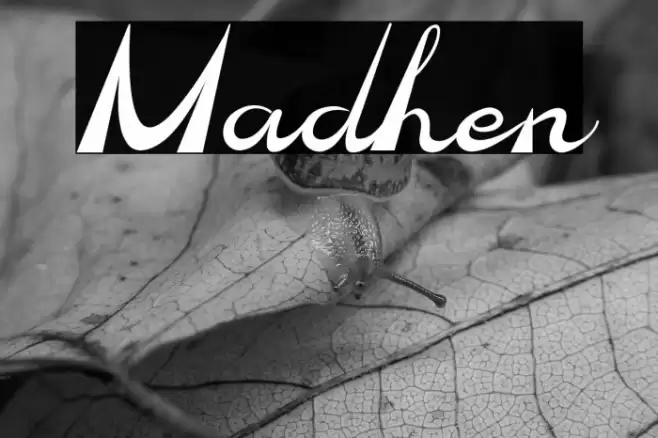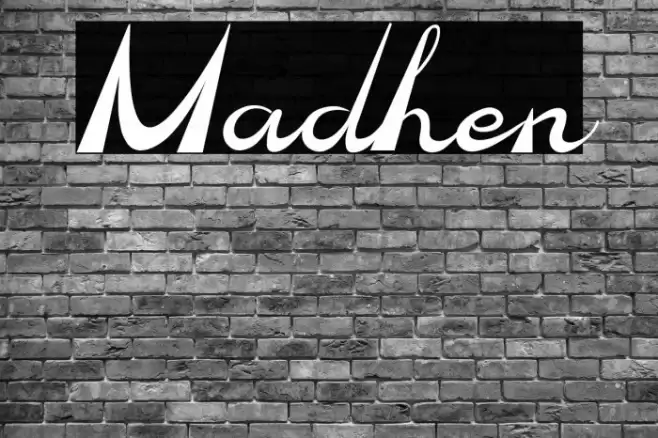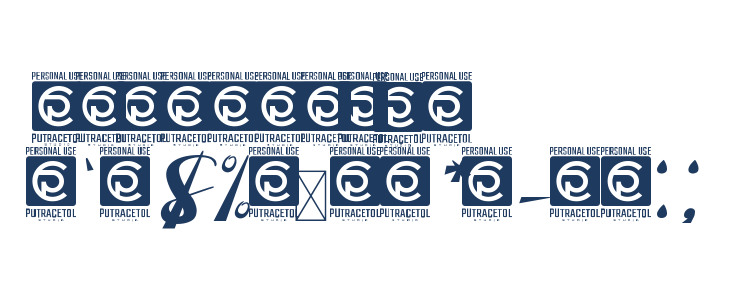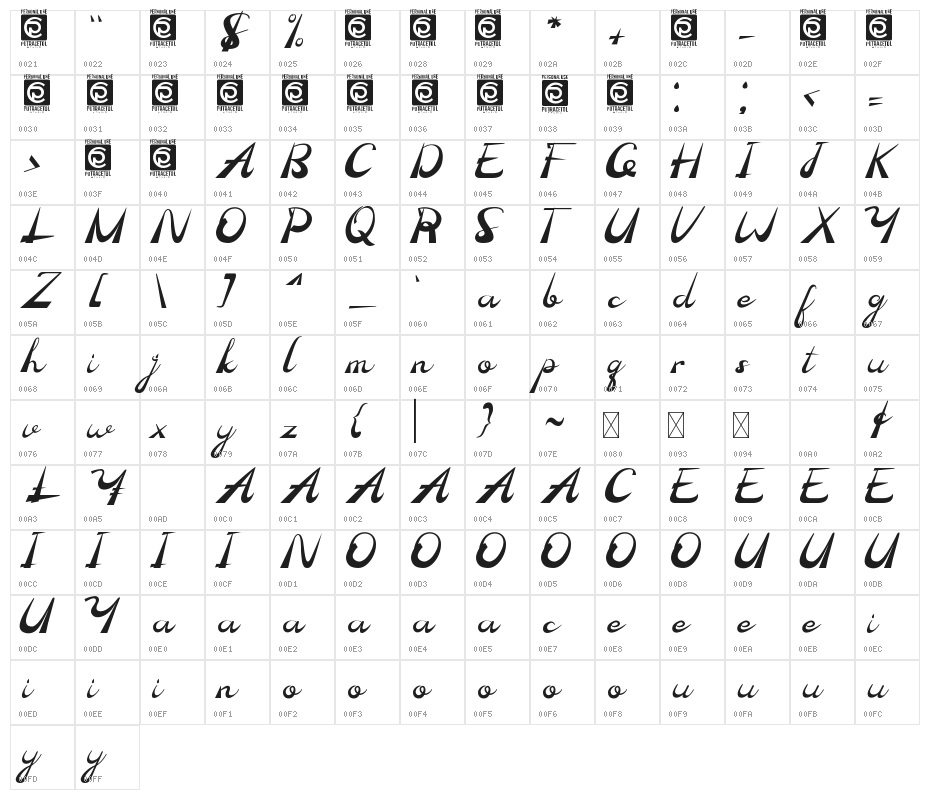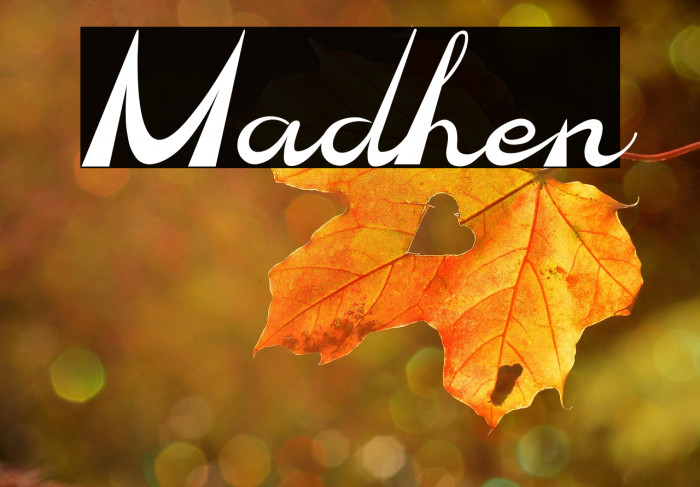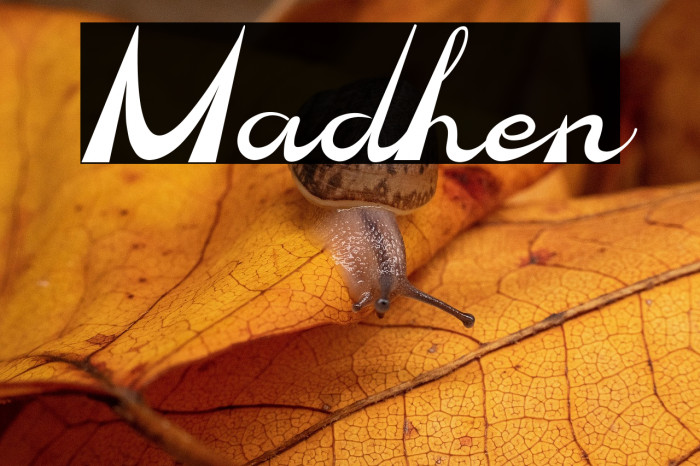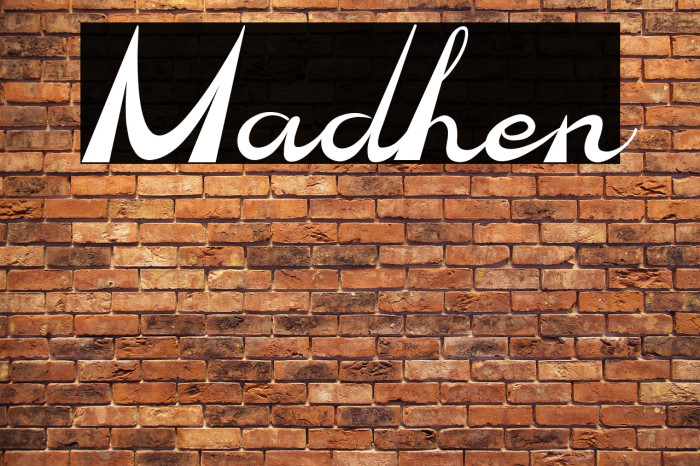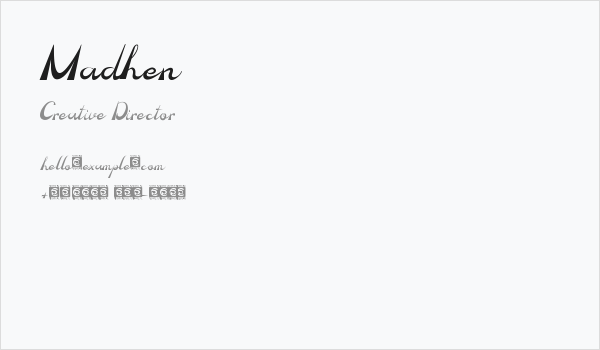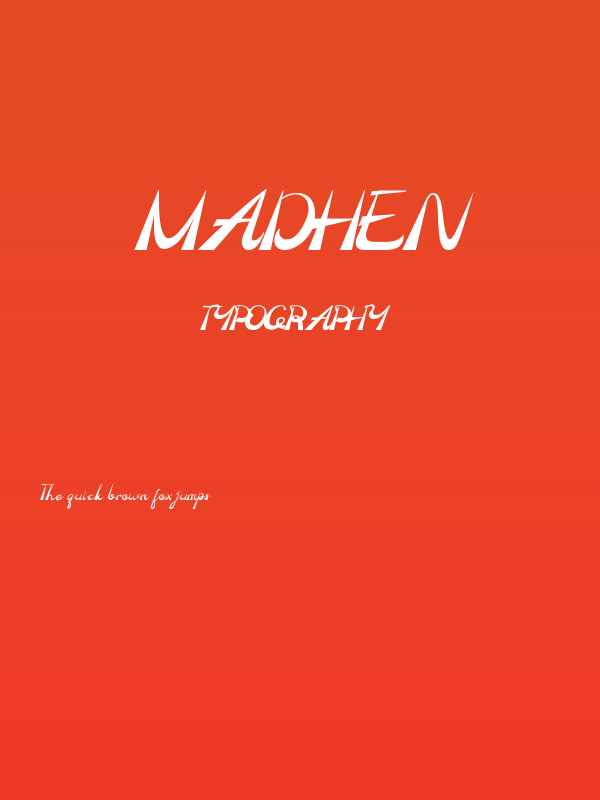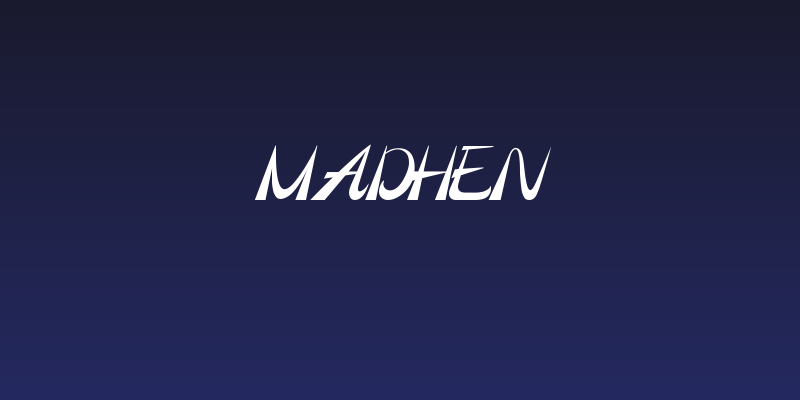
Madhen Font
Madhen Description
This font features a dynamic and energetic style with a mix of sharp angles and smooth curves. The uppercase letters are bold and slightly slanted, giving a sense of movement and modernity. The lowercase letters are more fluid, with a cursive influence that adds a touch of elegance. The numerals and special characters maintain the same energetic style, ensuring consistency across all elements. This font is suitable for projects that require a bold and stylish statement, combining both modern and classic elements.
A dynamic and energetic font with bold, slanted uppercase and fluid, cursive lowercase letters from Regular fonts.
- Proposed Projects: Ideal for branding, advertising, fashion magazines, and creative posters.